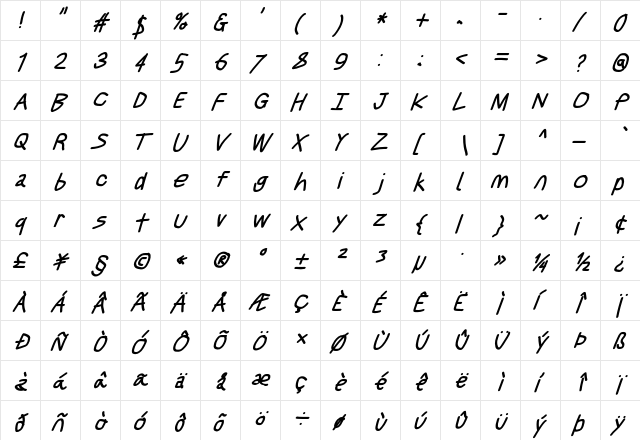
Just Breathe BdObl7
Design Context for Just Breathe Typeface
Just Breathe is a composed and adaptable typeface that performs quietly and consistently across a wide range of design contexts.